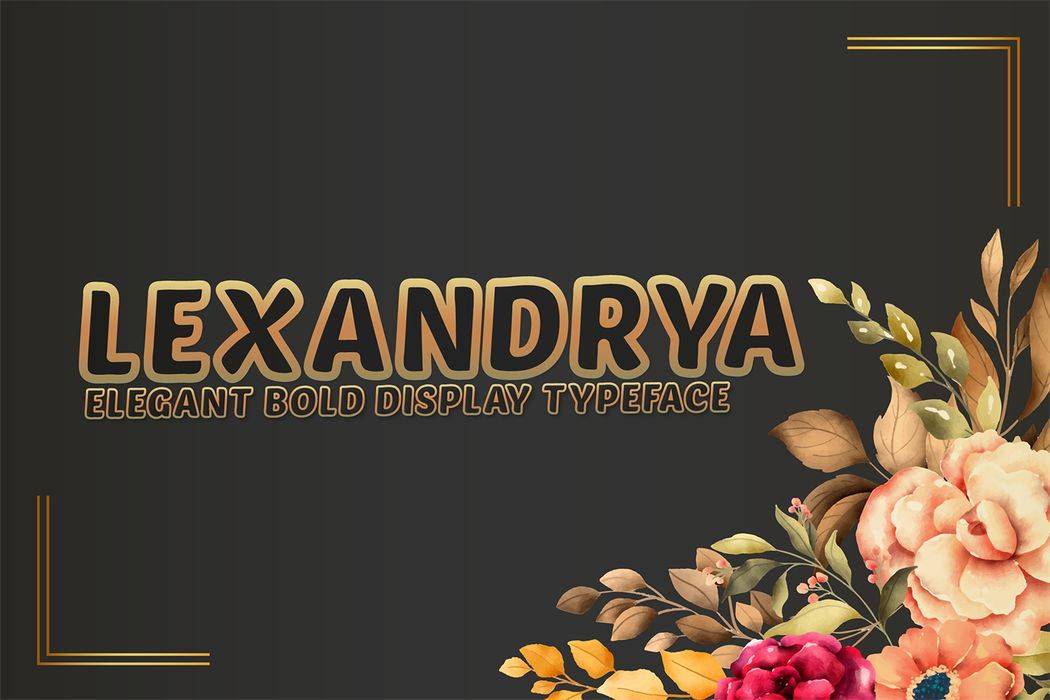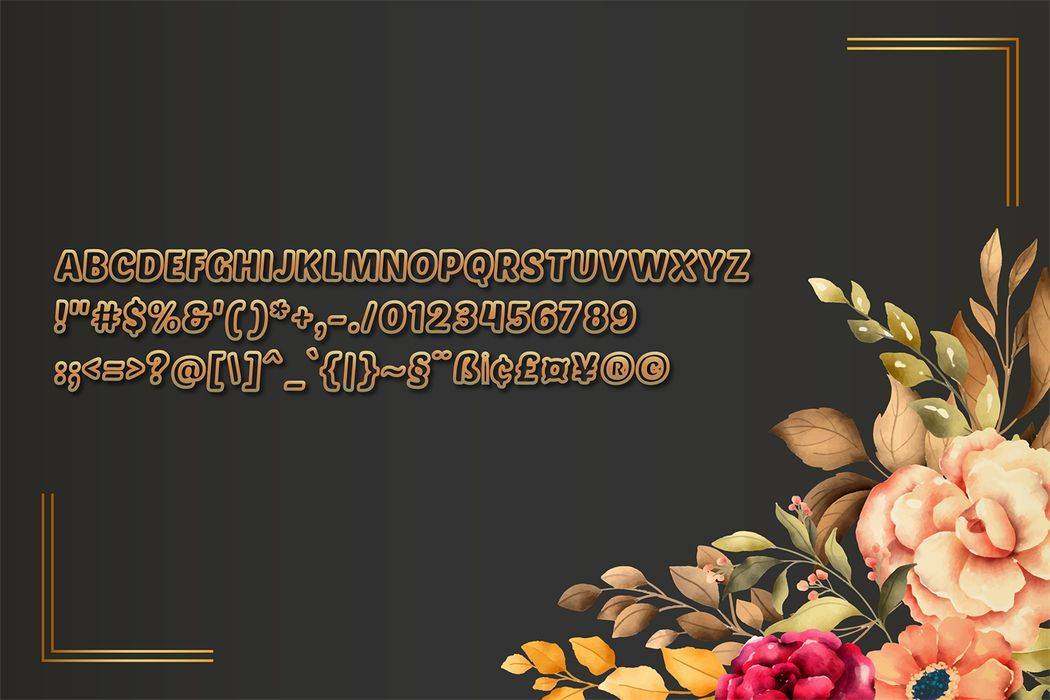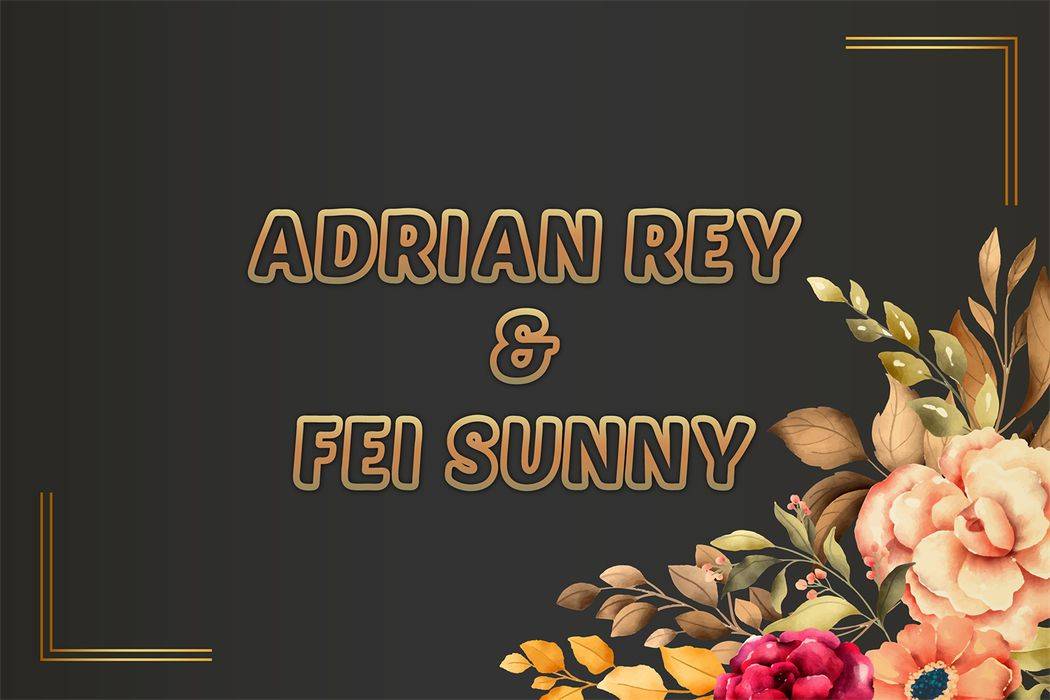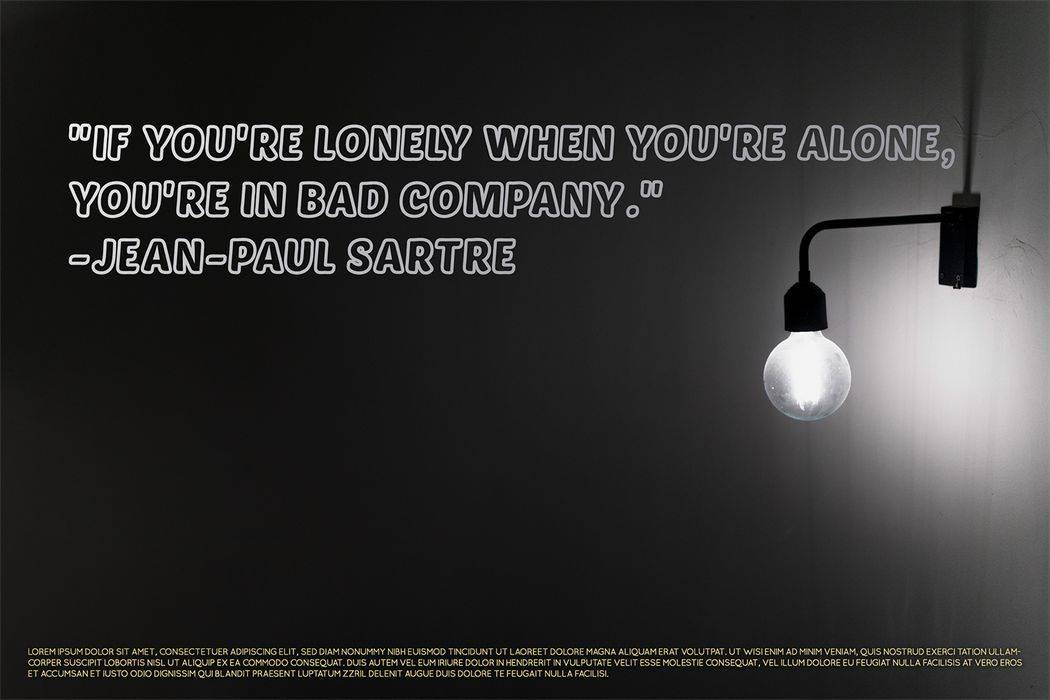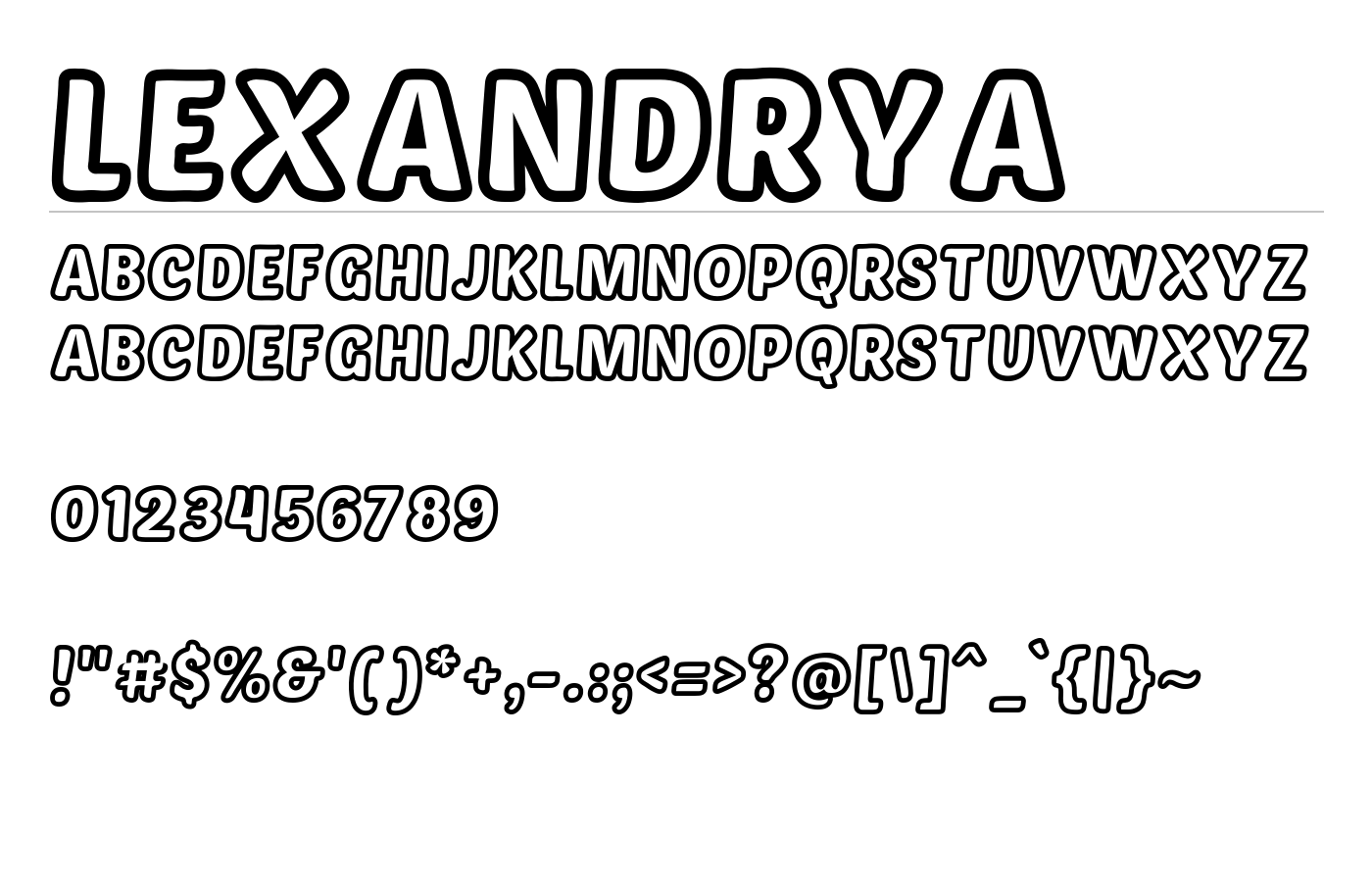
Lexandrya is a playful and friendly sans serif font featuring rounded, slightly irregular letterforms with a bold outline that adds emphasis and charm. Its medium to wide width and lively, hand-drawn feel make it ideal for casual, fun designs such as children’s books, posters, or branding that seeks an approachable and creative look. This font stands out in headlines and logos where a cheerful, informal personality is desired.
Lexandrya Font
About Lexandrya Font